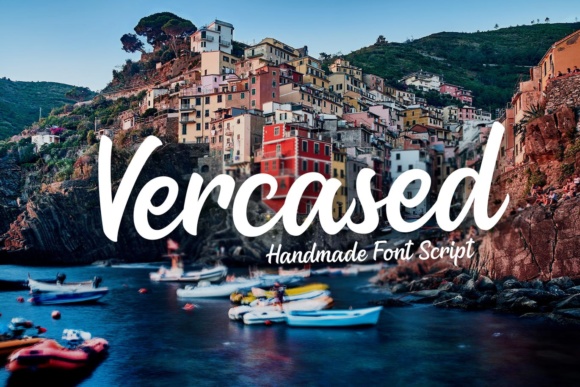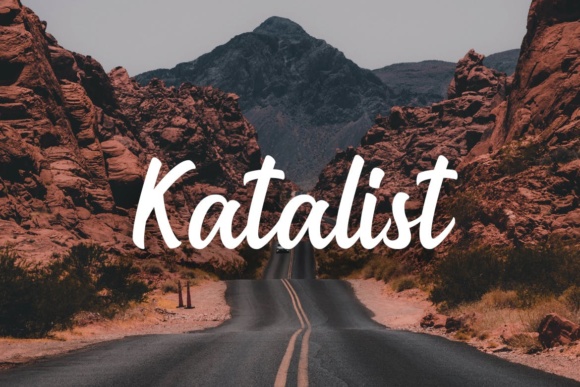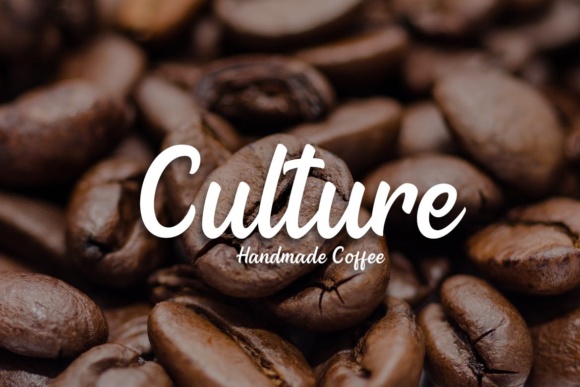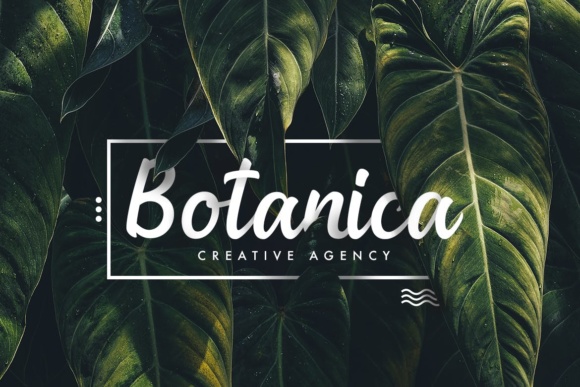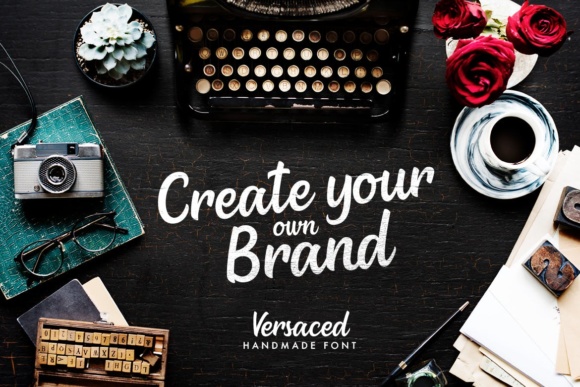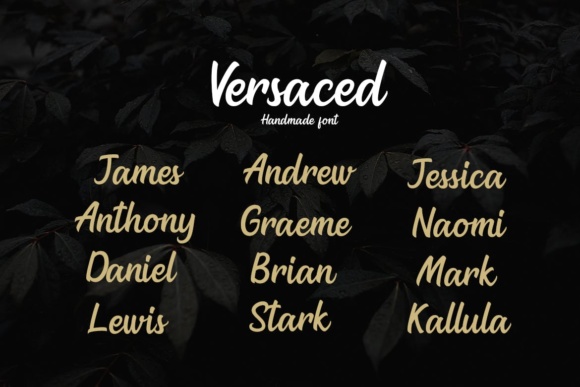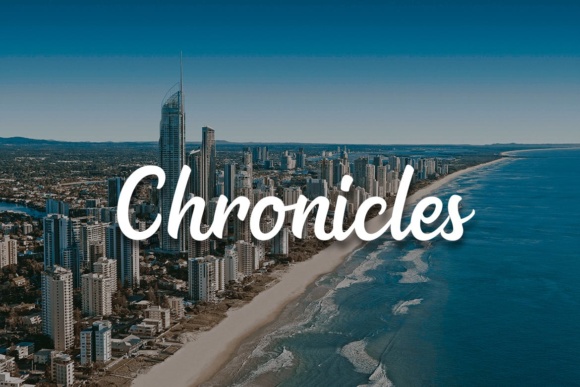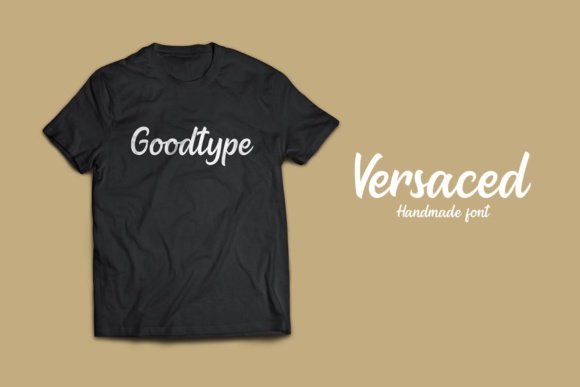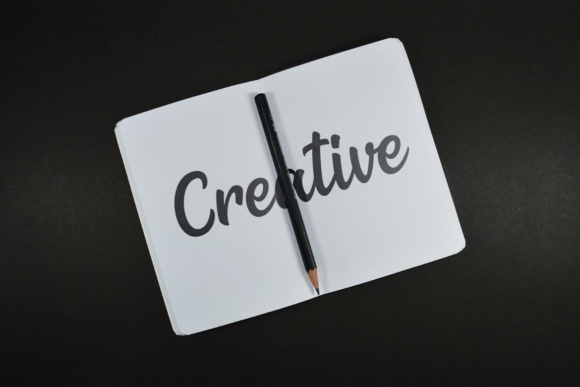
Versaced Font
About Versaced Font
Create a extraordinary design by using Versaced. Can be used perfectly for headers, titles, prints and other creative ideas.